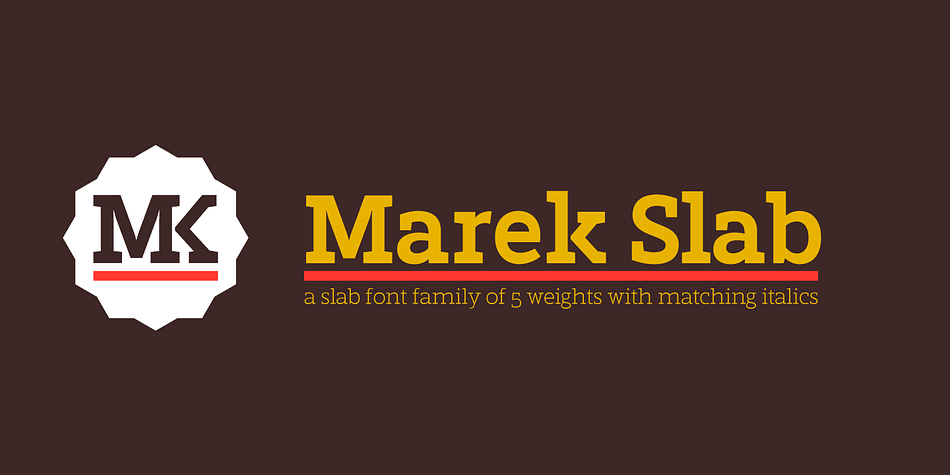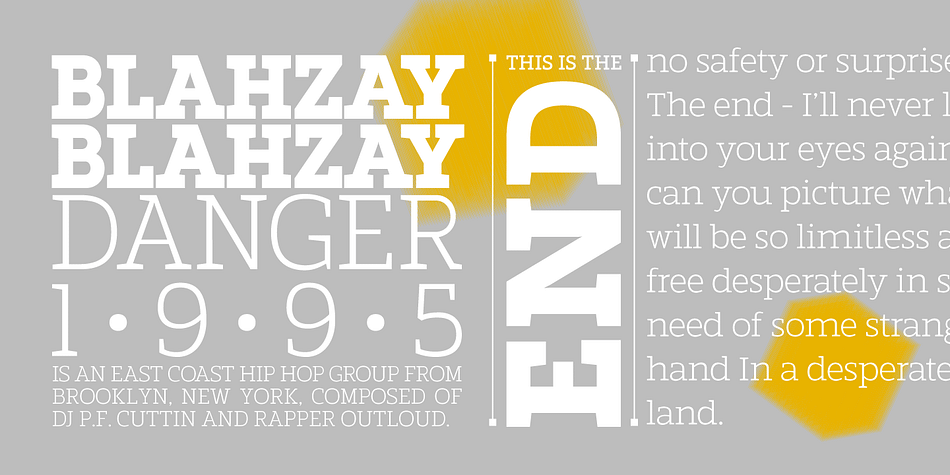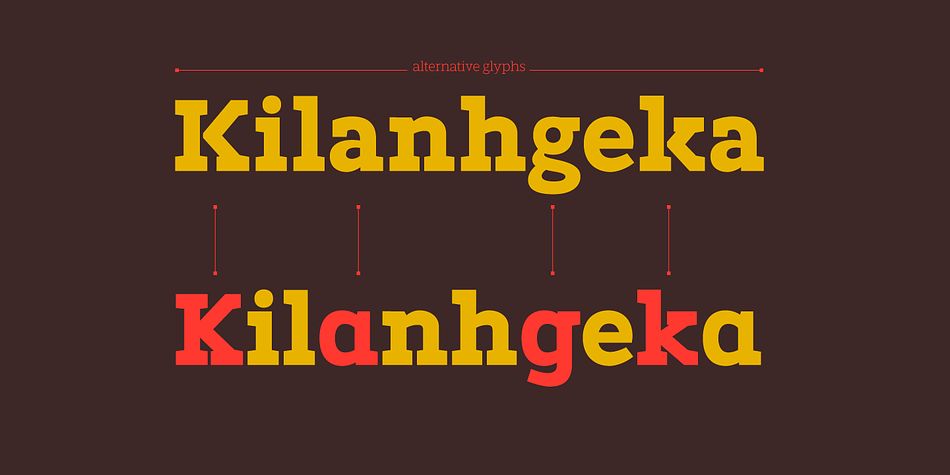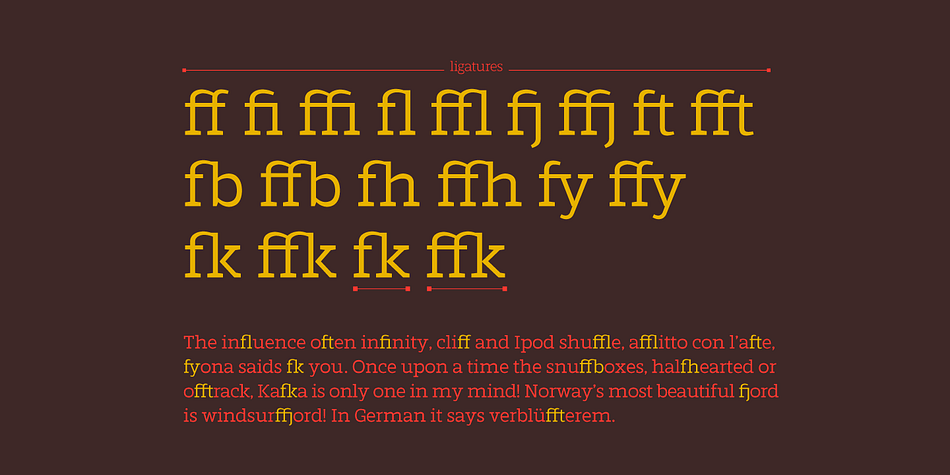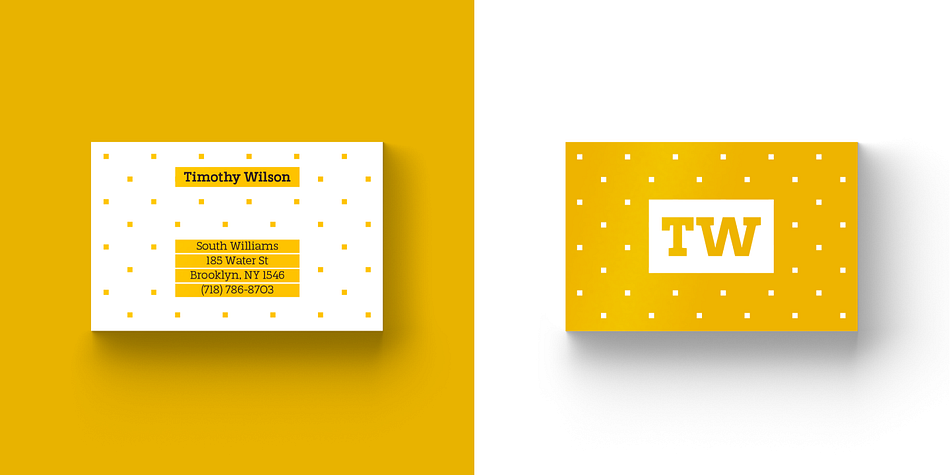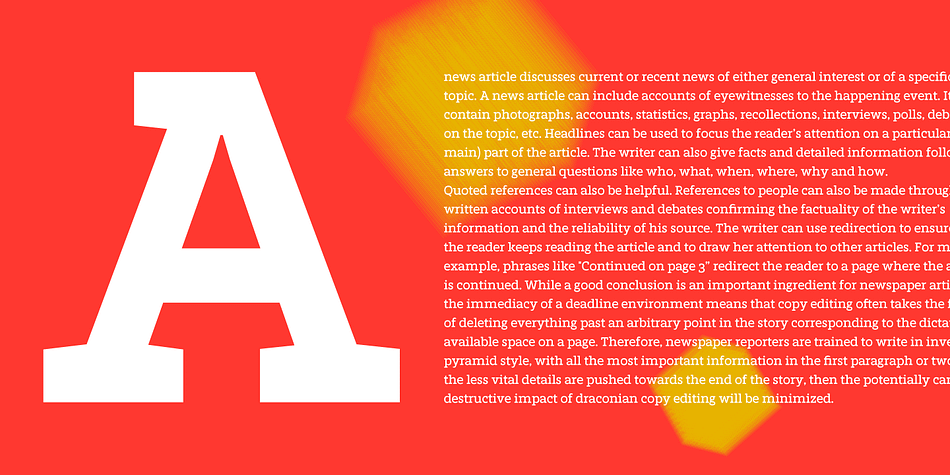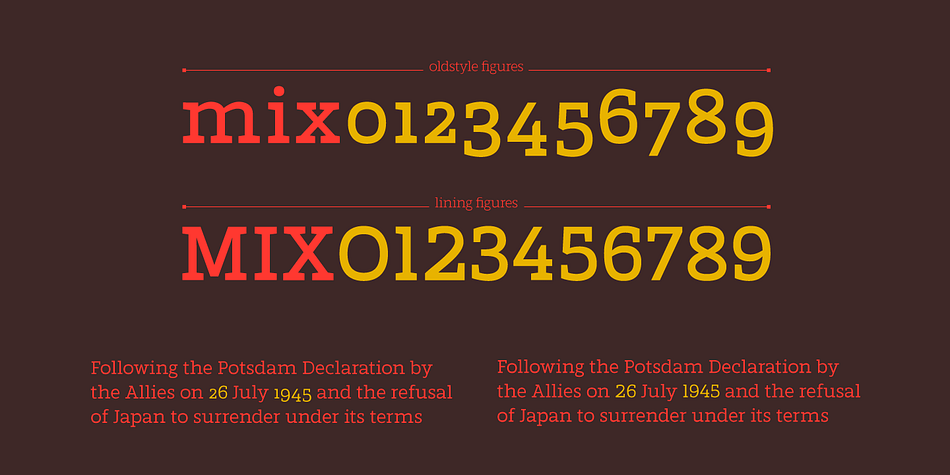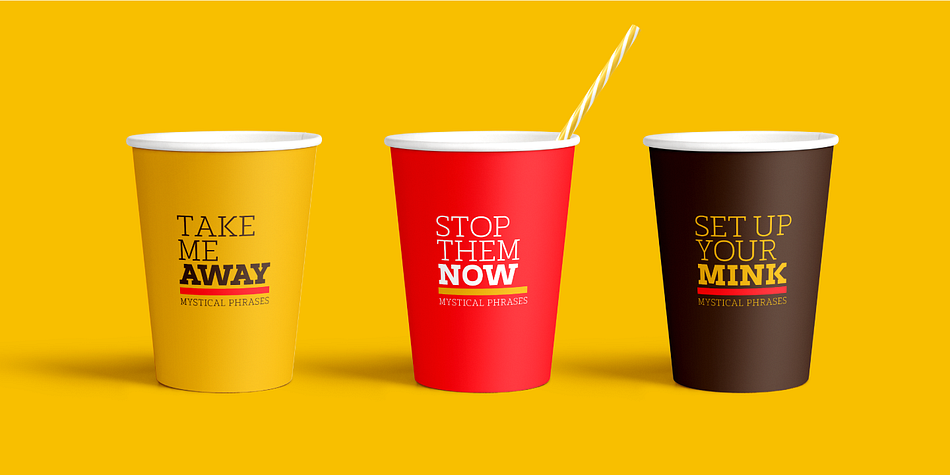
Designed by Rosario Nocera, Marek Slab is a slab serif font family. This typeface has ten styles and was published by Rosario Nocera.
Marek is a slab serif font it takes it’s name from a football player from the Naples soccer team “Marek Hamsik”. It is composed of 5 weights (thin, light, regular, bold and black with matching italics), it’s ideal for big headers as for magazines, t-shirts, branding and much more. It is available in open type format and includes alternative fonts (a,K,k,g), ligatures, oldstyle and linear number. Moreover, it includes the glyph of the new bitcoin currency, supports more than 80 languages and it’s composed of 392 glyphs.